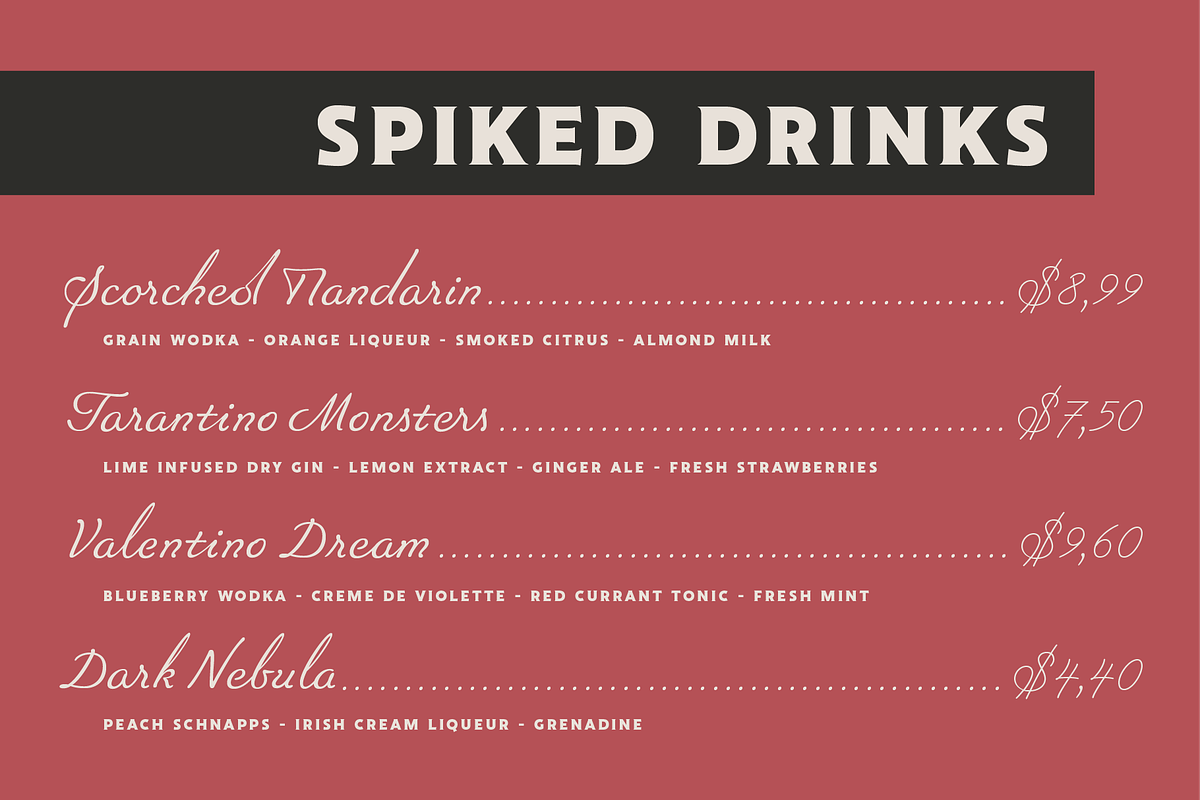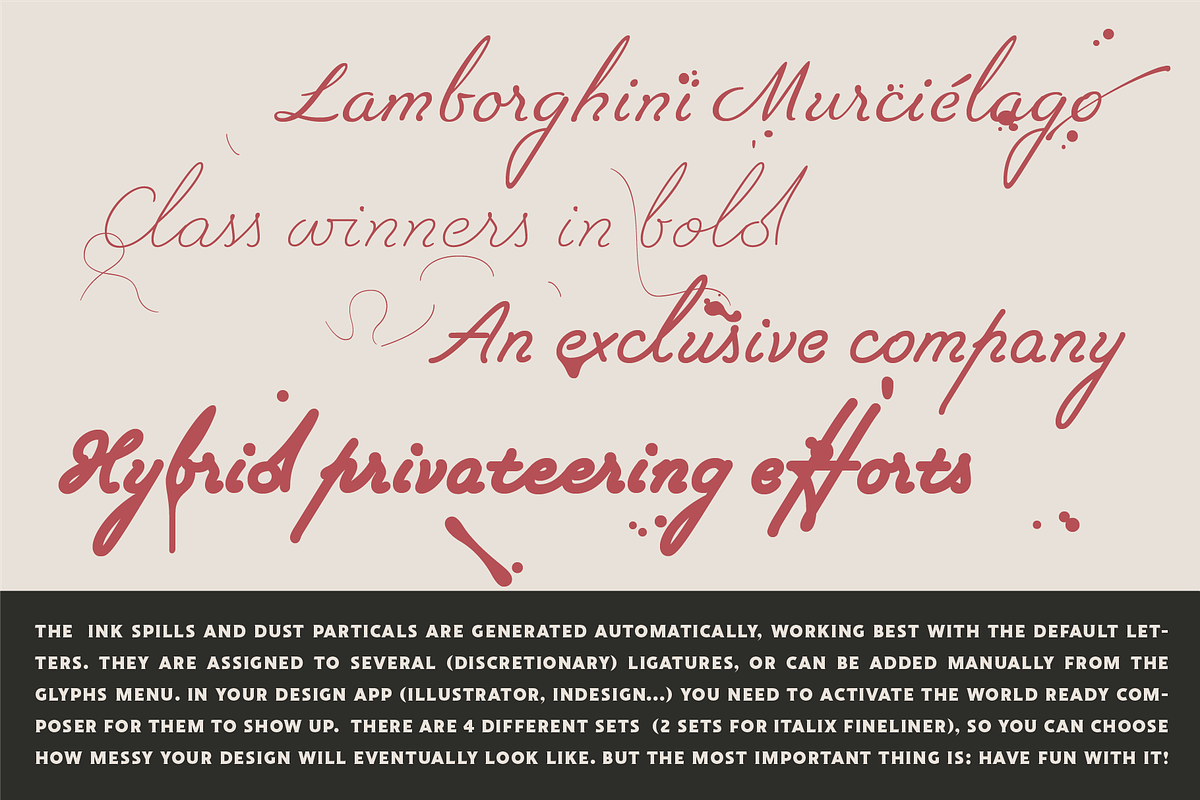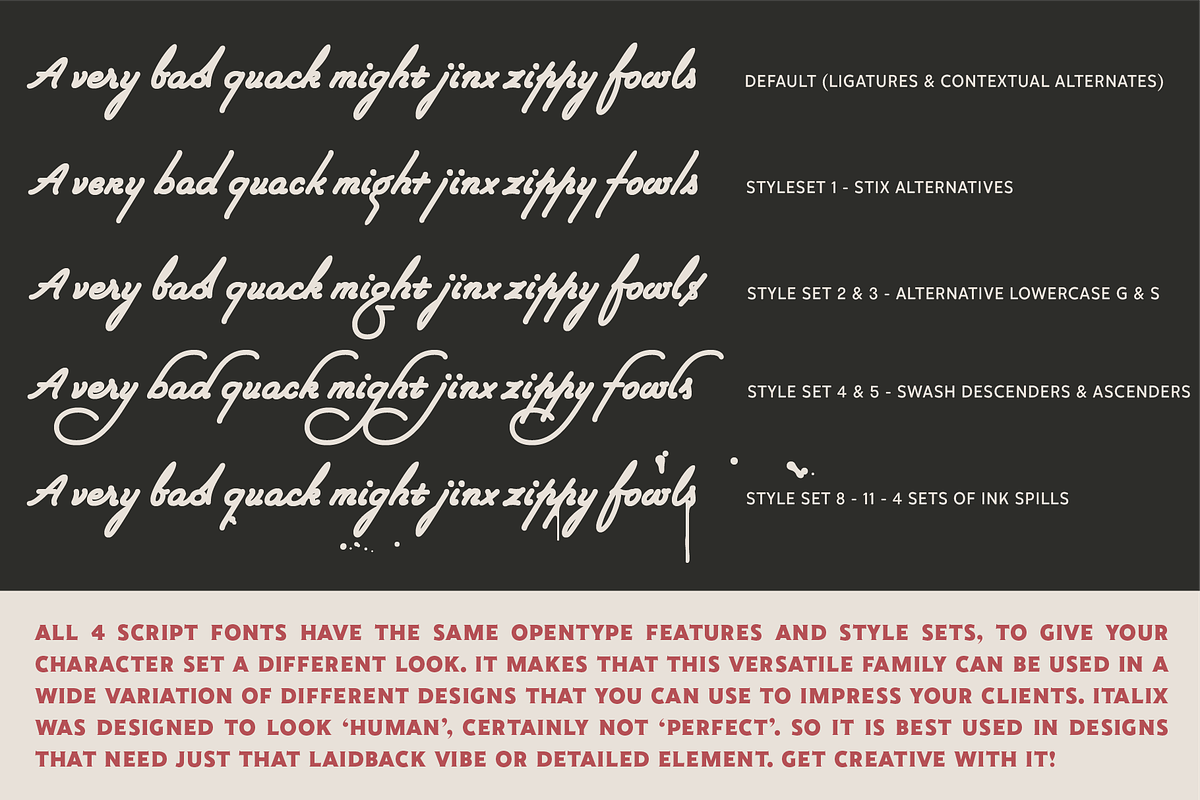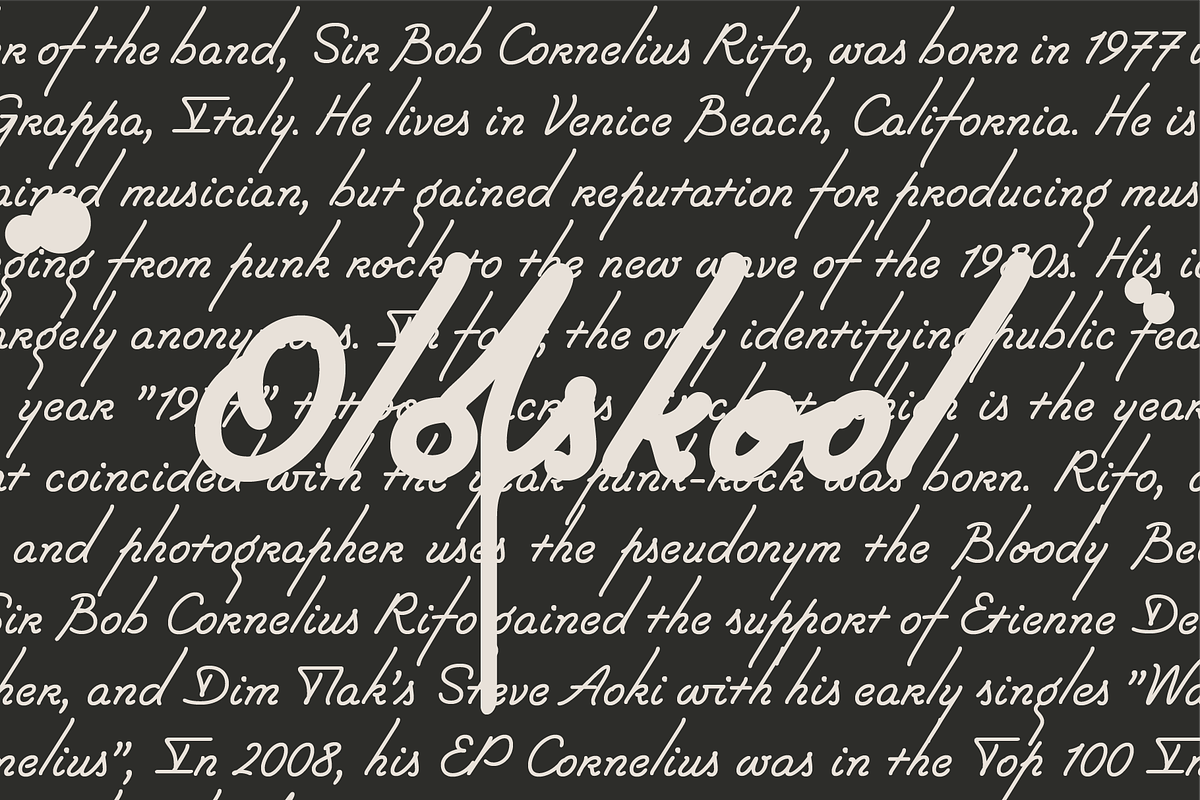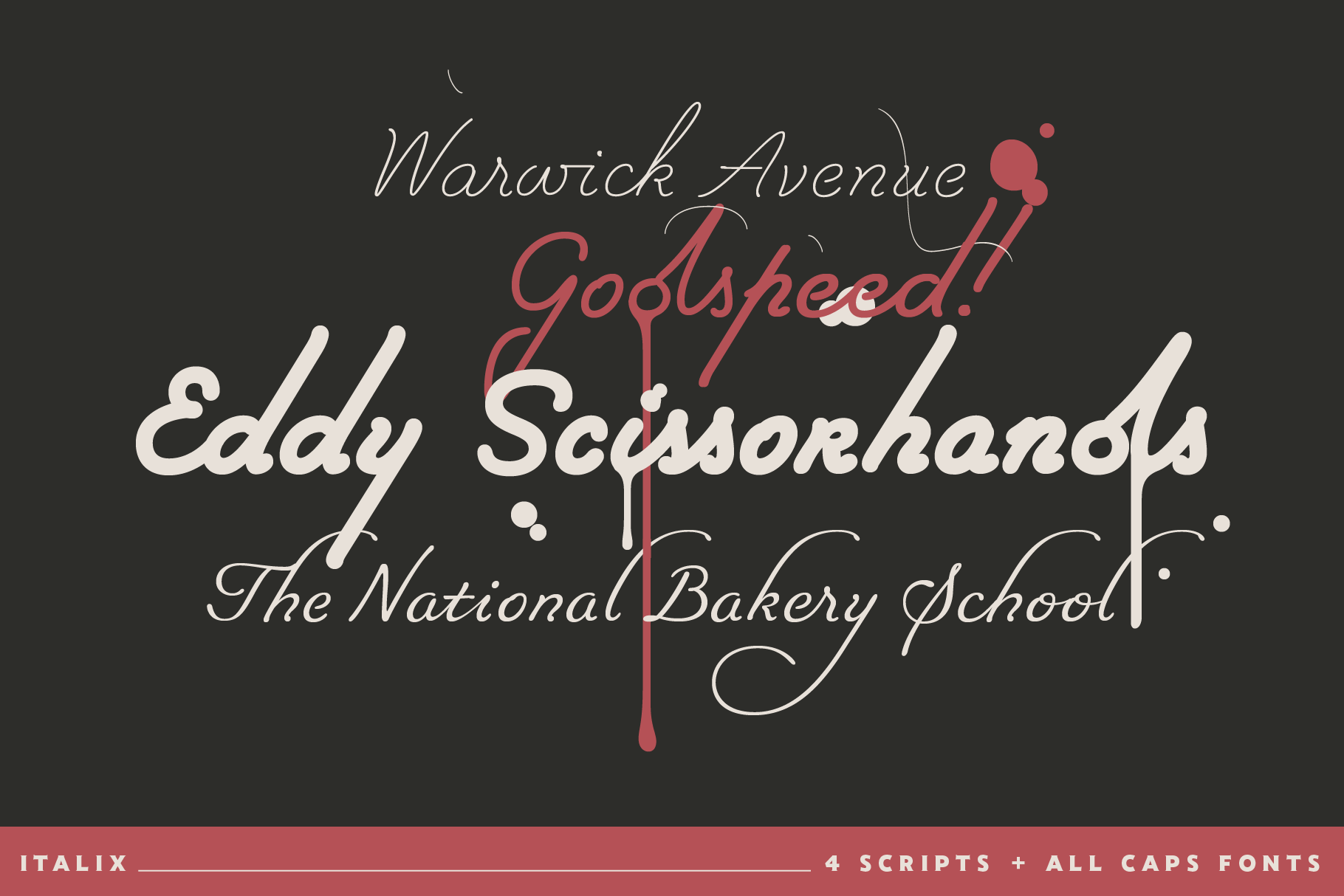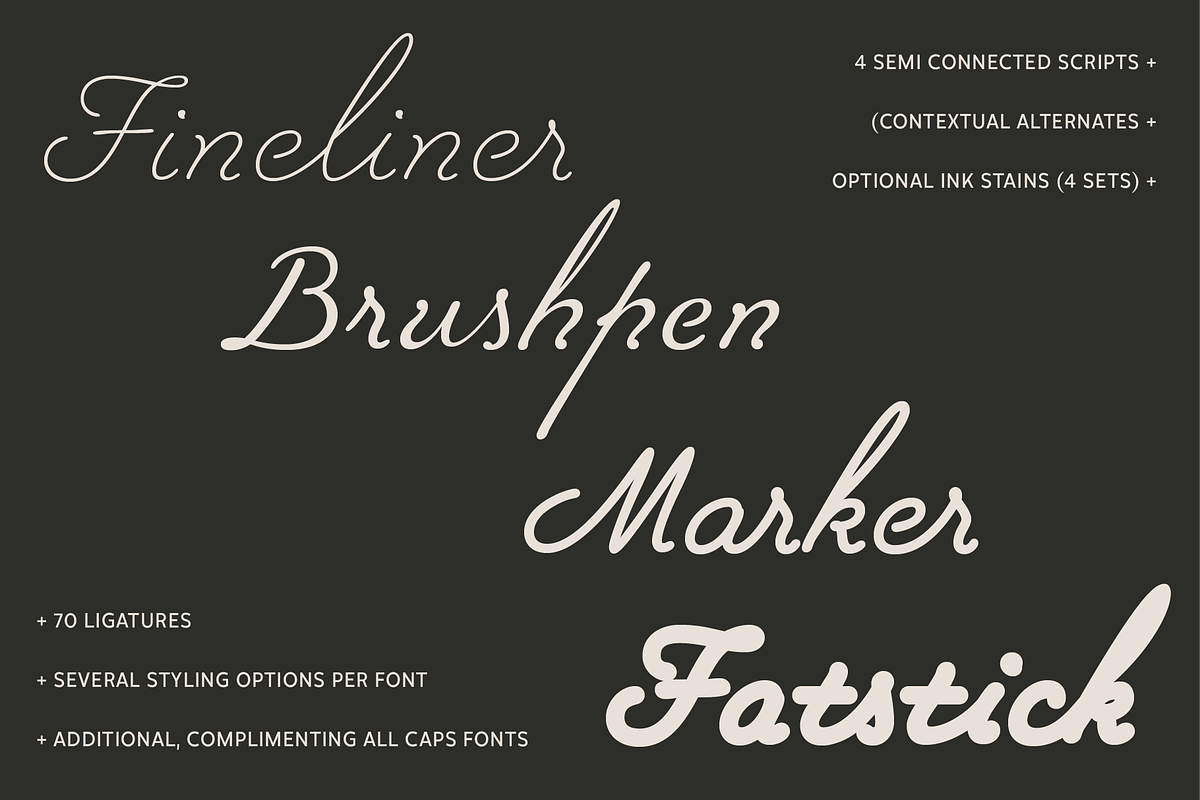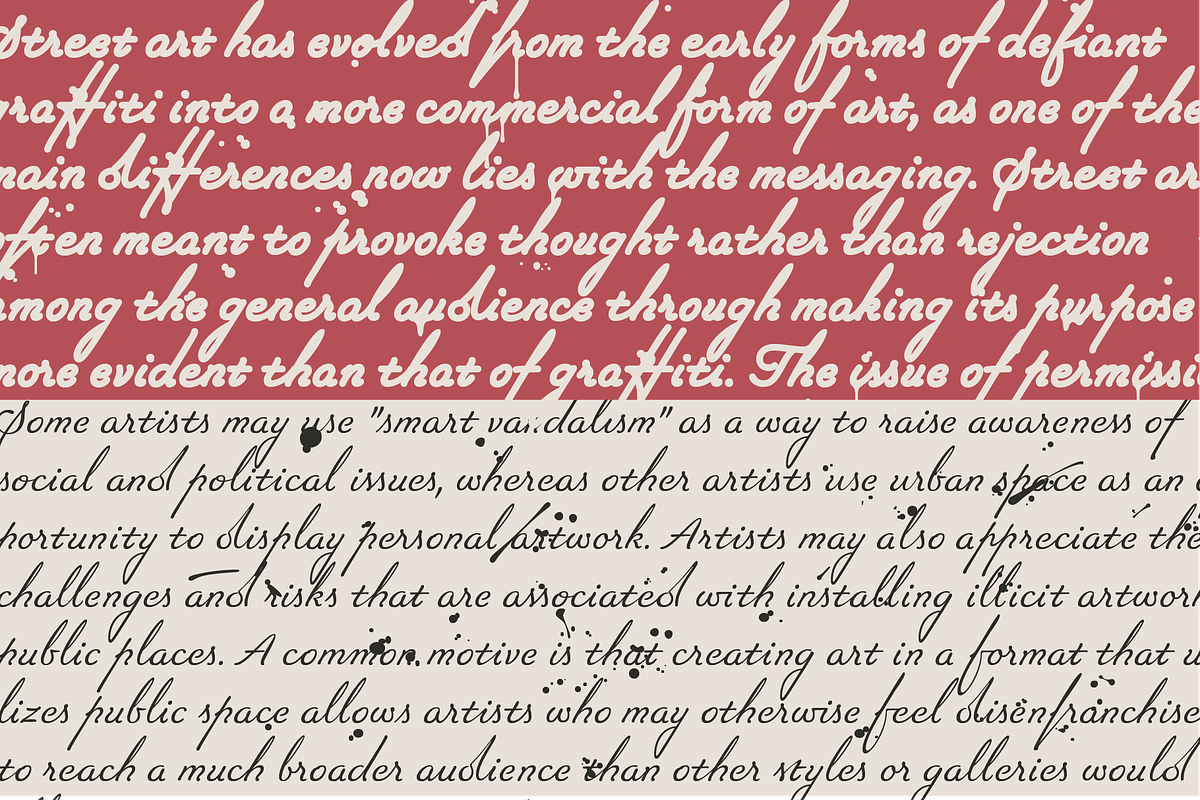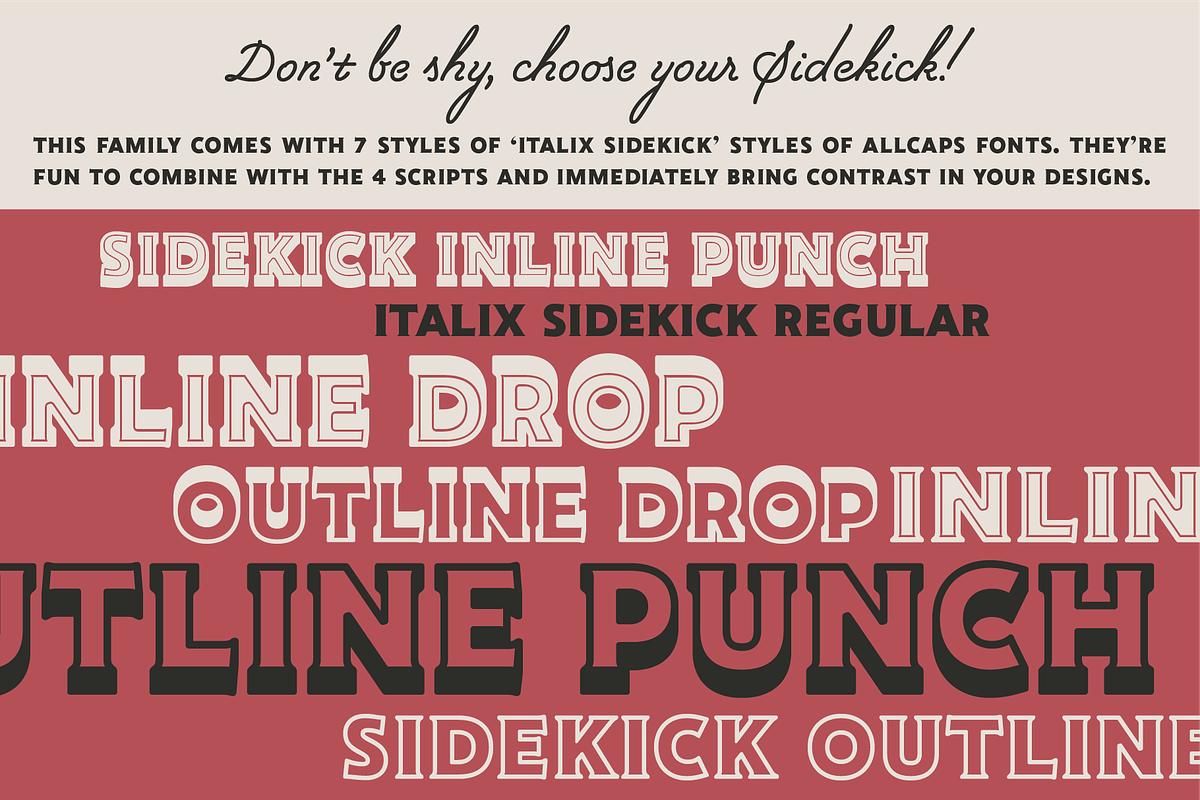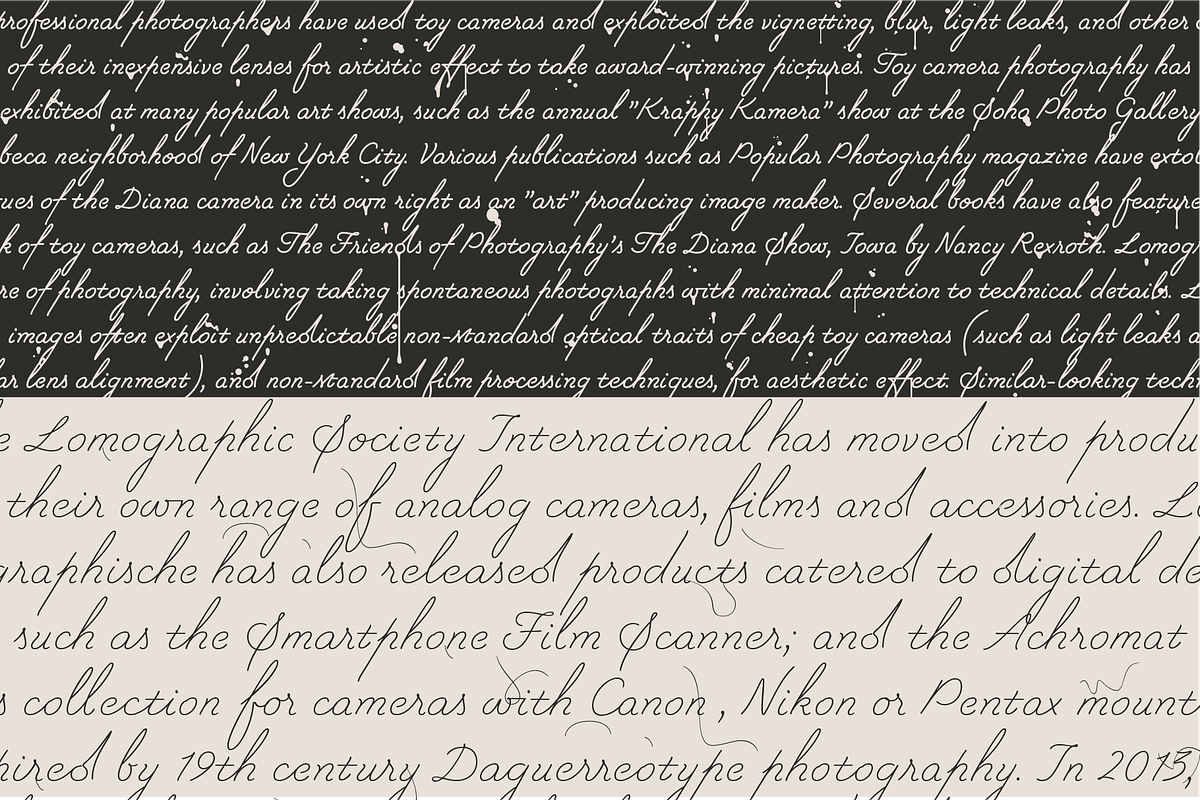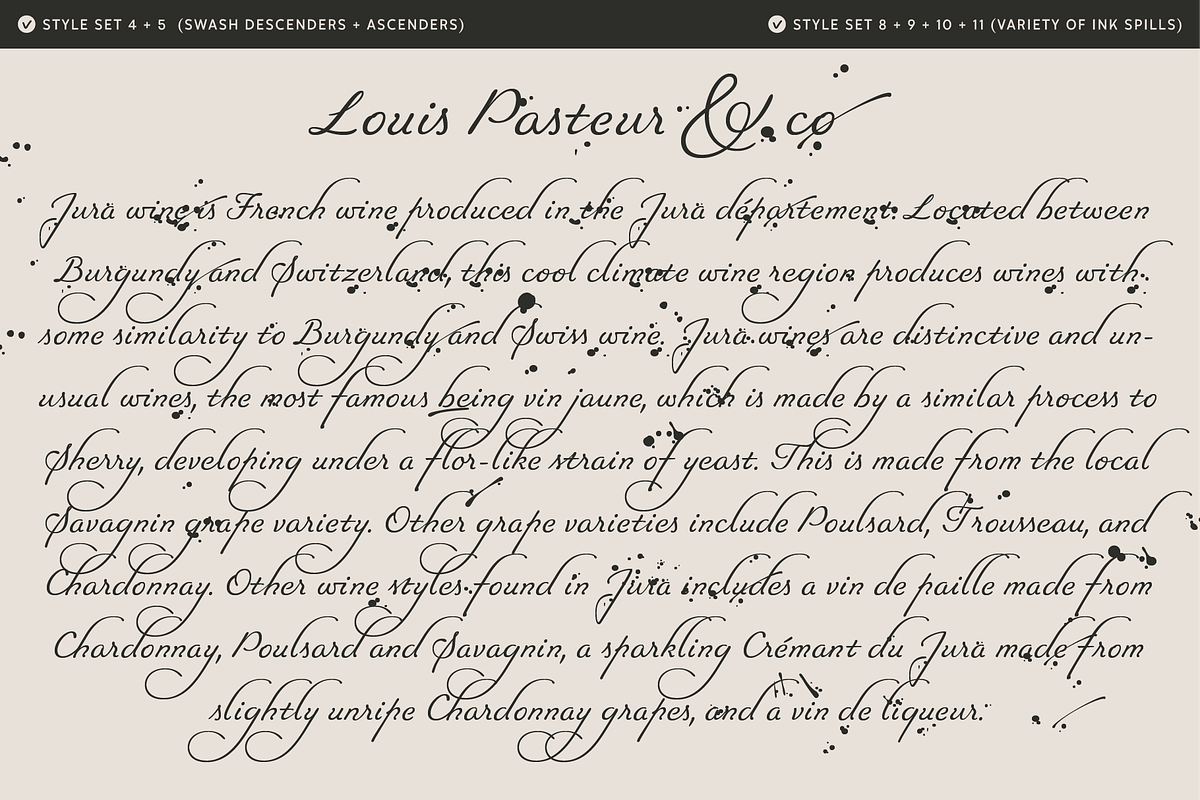
Italix - Script Font Family
Italix font family contains 4 experimental, creative script fonts (otf, woff & woff2 files) with optional ink splatters, a ton of ligatures, opentype features and several style sets + 7 styles of AllCaps fonts. The 4 semi-connected script styles give you the opportunity to get real creative in all sorts of different design genres, so you can show your clients an impressive result, with a custom made feel. Italix can be integrated in several text design; editorial, invitations, menu cards, slick packaging,... you name it!
This complete package contains:
4 scripts:
- Italix Fineliner
- Italix Brushpen
- Italix Marker
- Italix Fatstick
7 sidescripts:
- Italix Sidekick
- Italix Sidekick Inline, Inline Drop & Inline Punch
- Italix Sidekick Outline, Outline Drop & Outline Punch